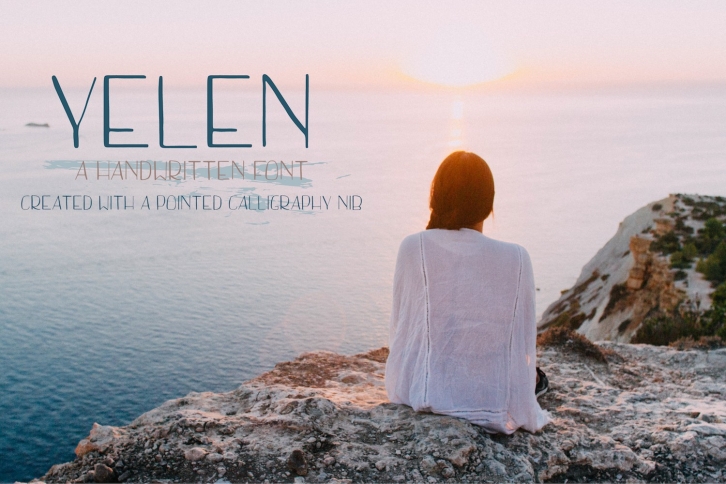
Yelen Handwritten is a trendy and unique font with an authentic style. It was designed by Annette Brown and it's a great choice for creative people who need such a font. It was released on November 14, 2016 and the file size is 13.65 MB. Yelen Handwritten will add an organic vibe to any design idea!